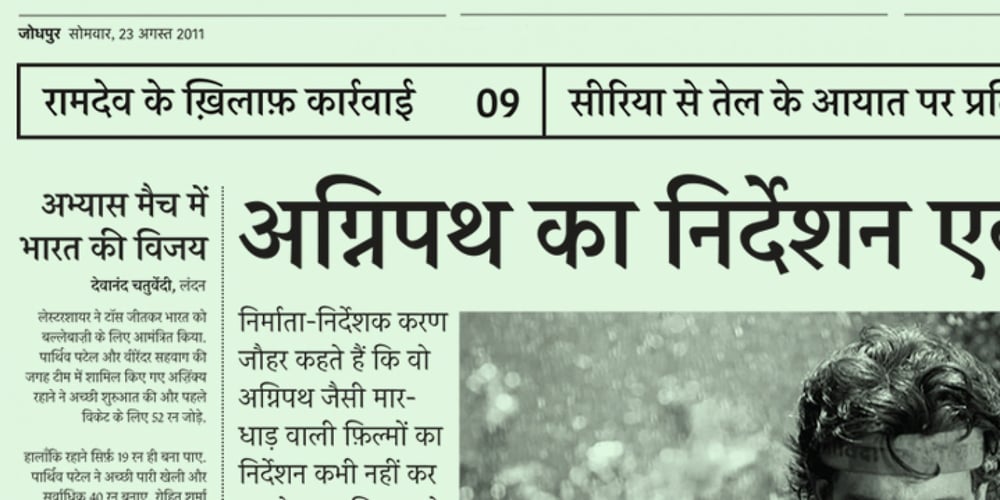
ITF Devanagari Font Family was designed by Satya Rajpurohit and published by Indian Type Foundry. ITF Devanagari contains 10 styles and family package options. ITF Devanagari is high contrast typeface in classical proportions suitable for setting books, magazines, and strict demands of the newspaper printing. The family consists of five weights and has been optimized for superb legibility at small sizes. Each style contains 847 glyphs including all the necessary conjuncts and ligatures used to write Hindi, Marathi and Nepali languages.